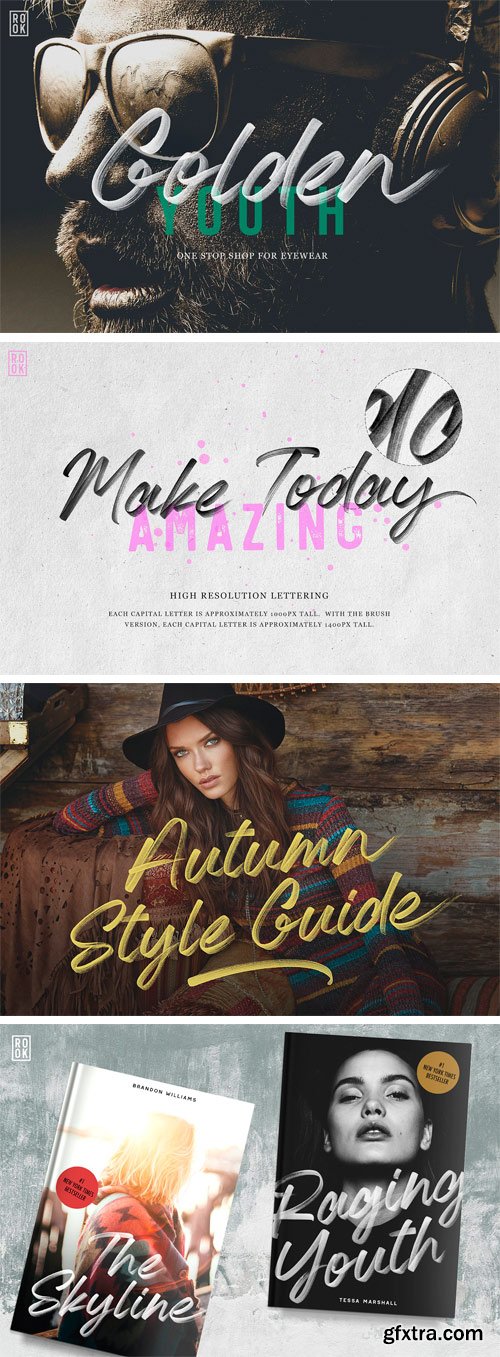
Almonte goes above and beyond a typical font. Using OpenType-SVG technology, this font preserves all the high definition detail of the original handwritten letters. It truly looks realistic, and the difference compared to regular vector fonts is staggering. In an instant, you can produce eye catching text that looks like it was meticulously drawn by a professional hand letterer. I spent several months perfecting this font to get everything just right.
So how does it work? Instead of vectorizing the letters, I invented a method that uses transparency effects in order to get the quality that you see. This is all made possible thanks to the latest developments of the OpenType-SVG format, and the integration of that technology into Photoshop. Almonte installs like any other font, and can be used in any color, on any background. Check out the example video to see everything this font can do!